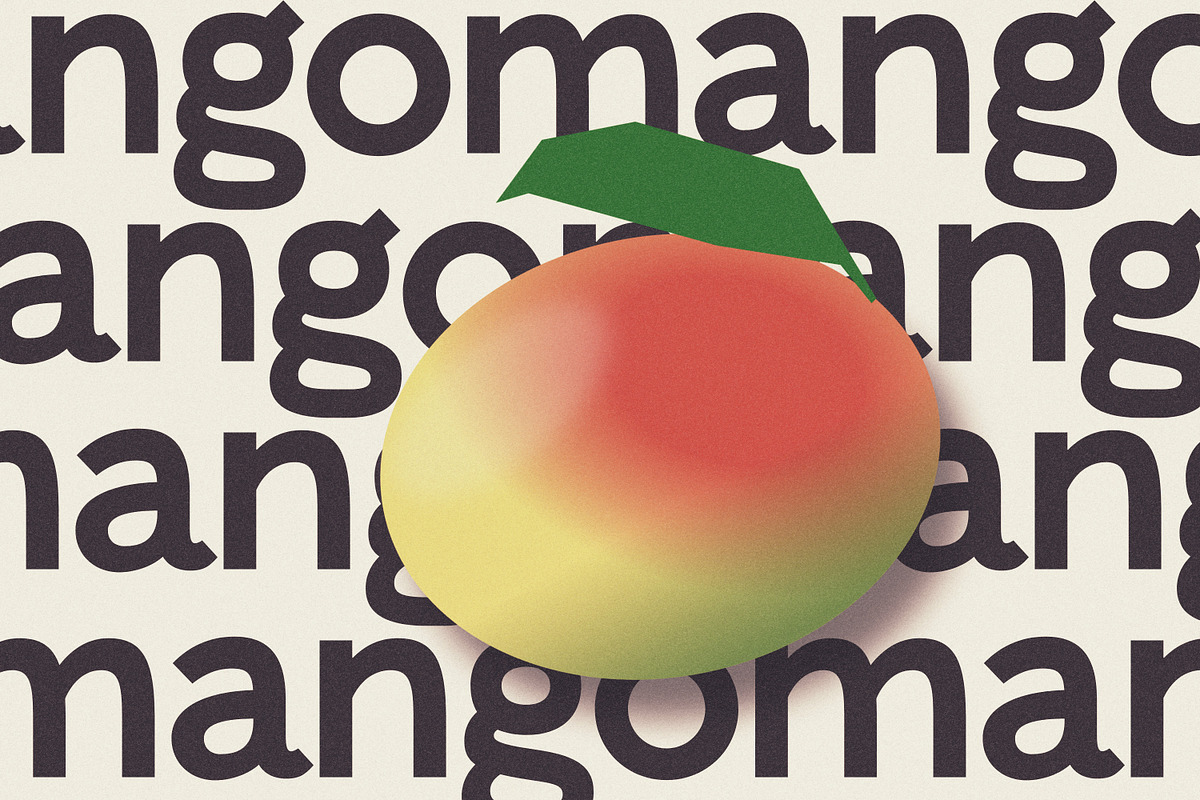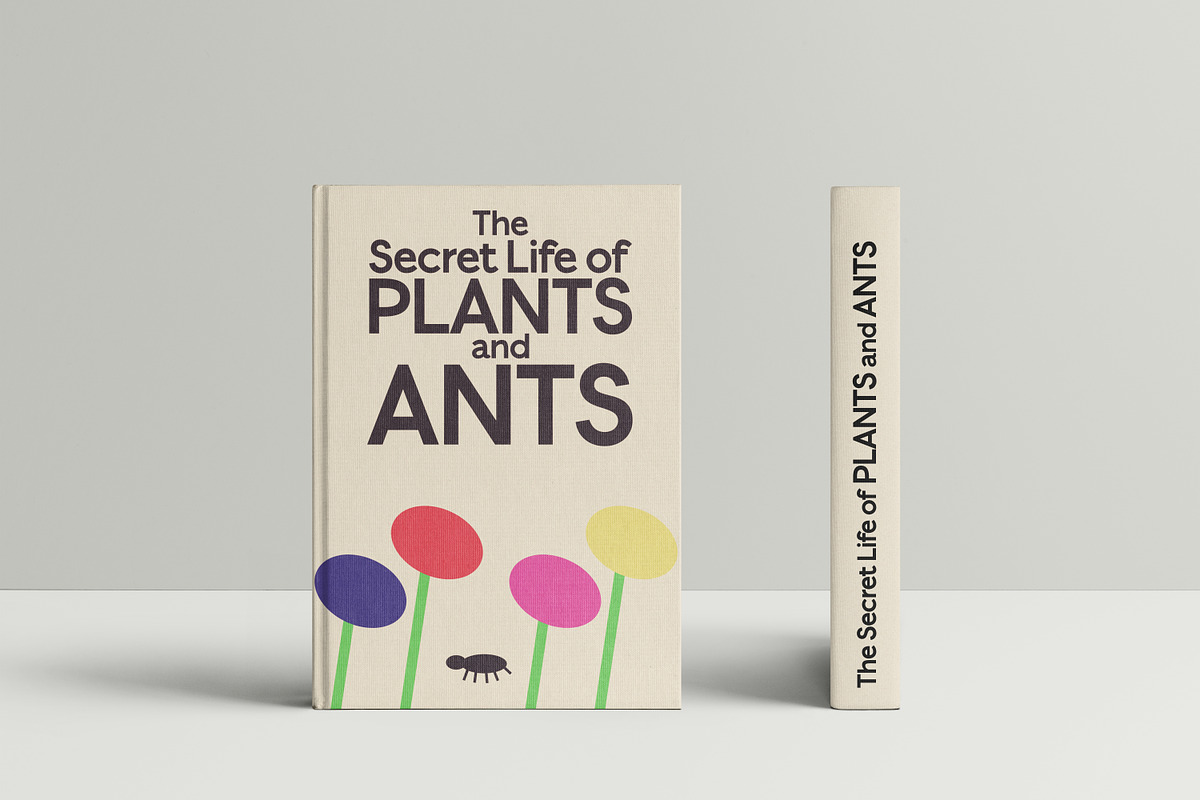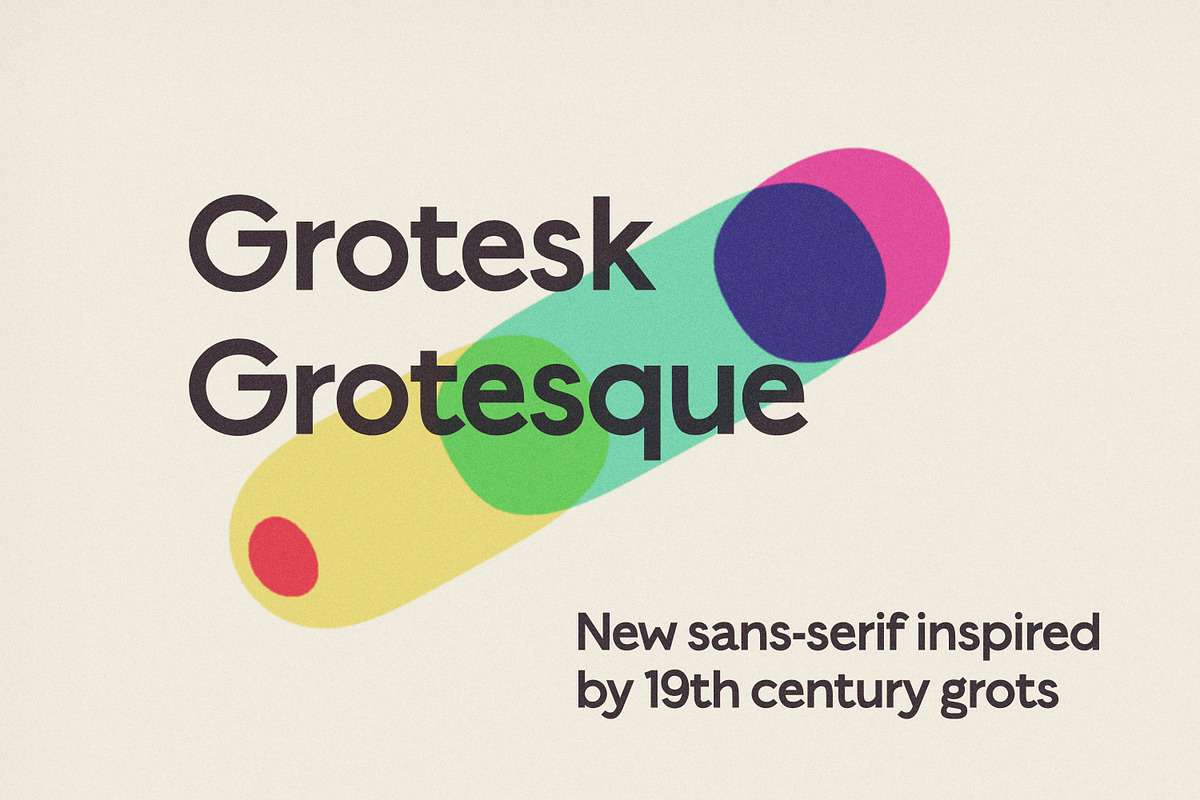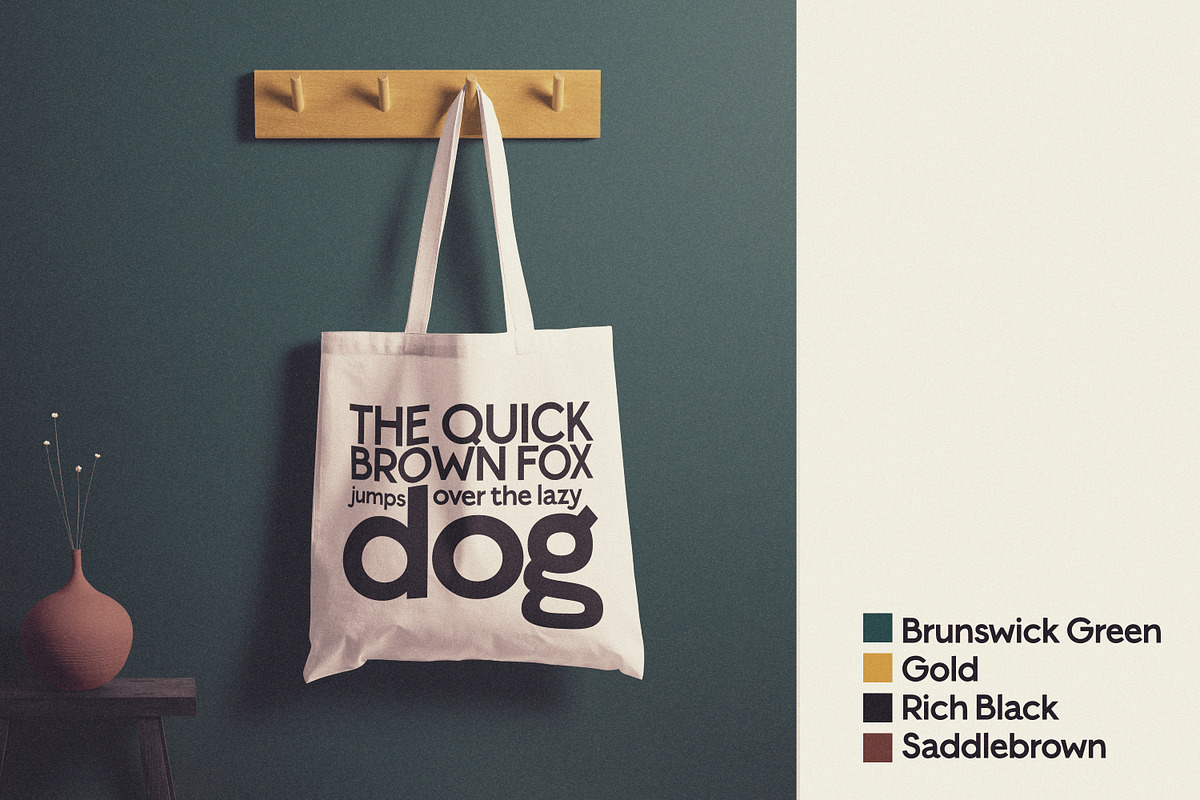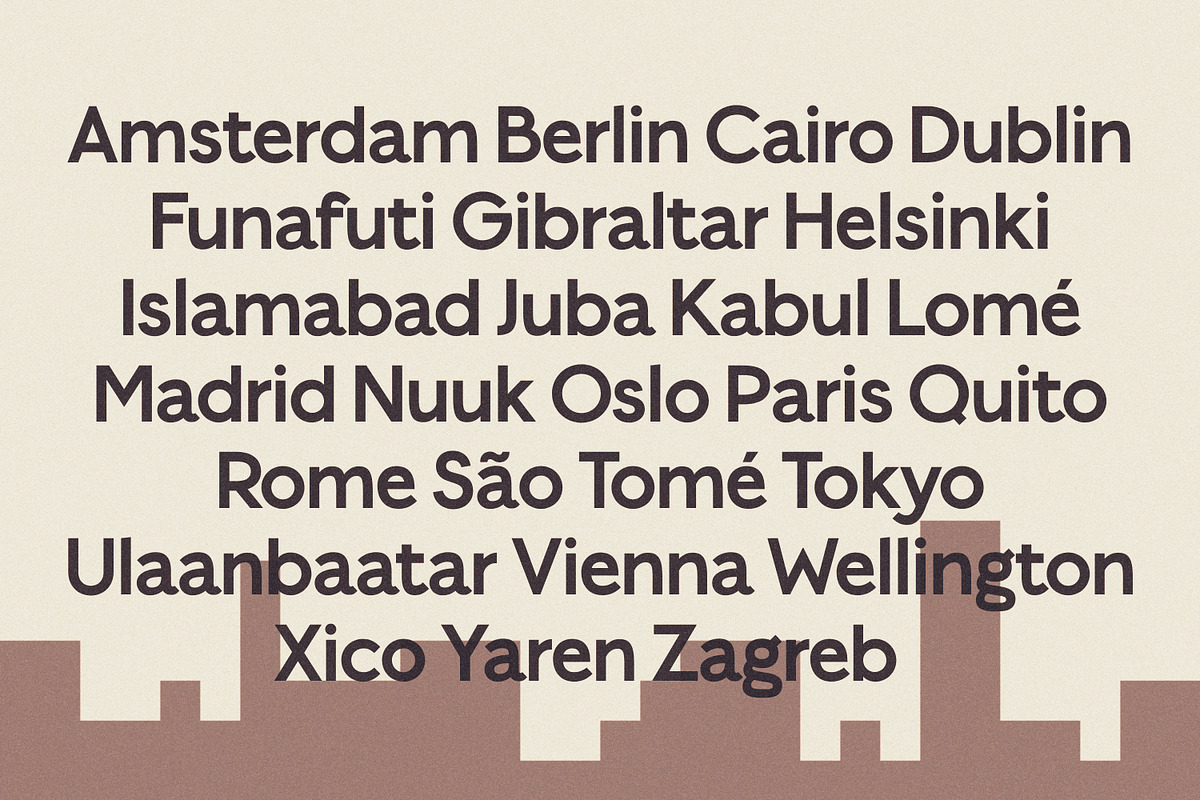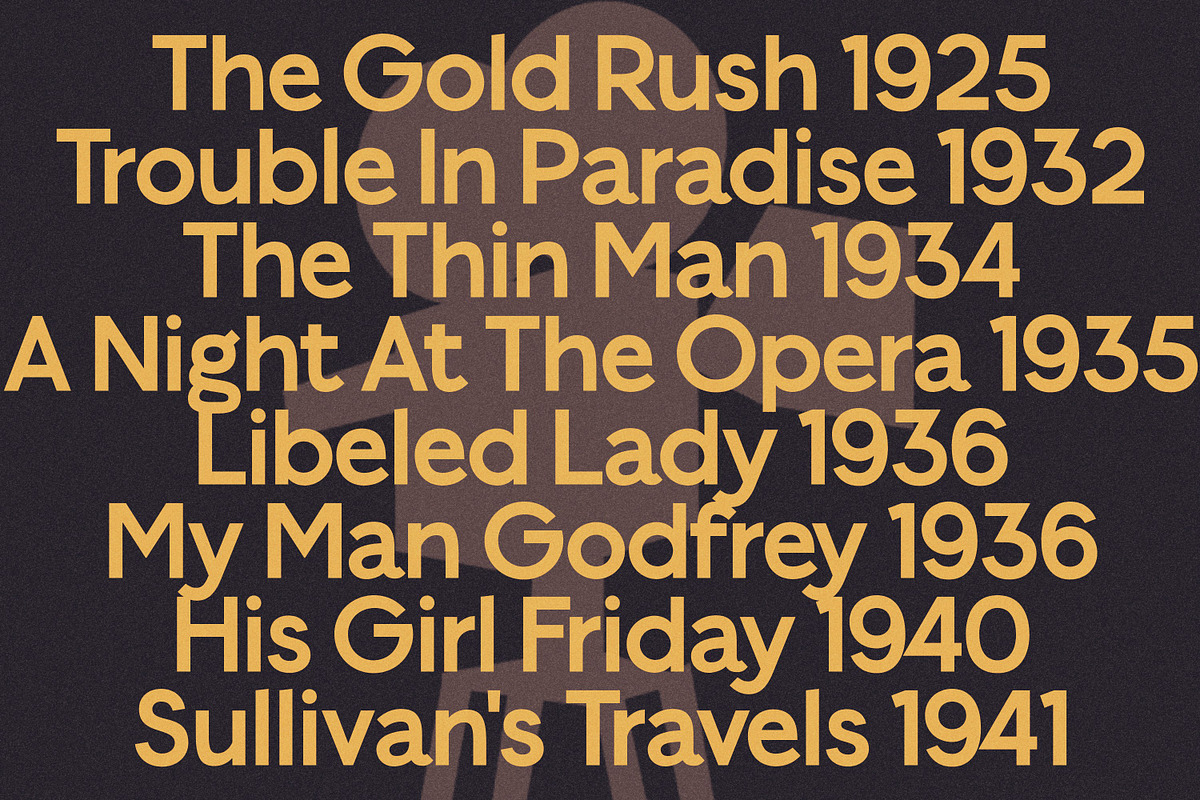
Grotesk Grotesque - Display Sans
Grotesk Grotesque takes its inspiration from the 19th and early 20th century advertising grotesques. It has a very likable handmade feel to it, almost pen-like.